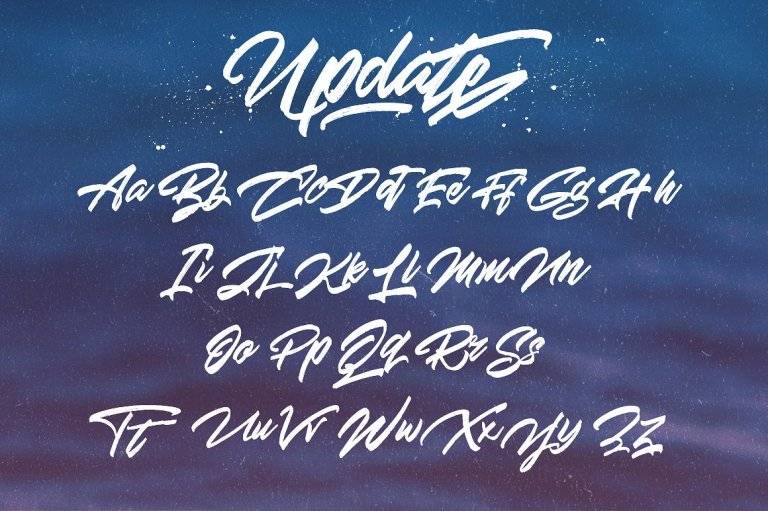
Skywalker Brush Font Free- Download Free
Skywalker Brush Font Free
Skywalker, a new Script and brush font, is now available. Dirty line Studio created and published this Brush Font. Skywalker is a hand-brushed typeface with a bouncing baseline and authentic dry brush flaws. It comes with a precisely matched marker font and an extremely useful set of extra Swash. Skywalker.otf & ttf, Skywalker alt.otf & ttf, and Skywalker Swash. otf & ttf are among the font formats available. Basic Latin A-Z and a-z, Numbers, Symbols, Stylistic Set, and Ligature are among the Font’s characteristics.
Logos, handwritten quotations, product packaging, headers, posters, products, social media, and greeting cards are all great choices for this typeface. Because of its wonderful texture and curves, the typeface looks well on t-shirt designs. The font also looks fantastic on blogs, particularly travel blogs. No matter what type of project it is, the typeface offers it a classic touch.
NameSkywalker Brush Font Free
StyleScript
DesignerDirty line Studio